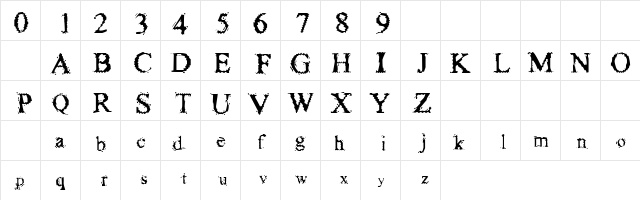
Relax Singh Regular
Design Context for Relax Singh Typeface
Relax Singh is a composed and adaptable typeface that performs quietly and consistently across a wide range of design contexts.